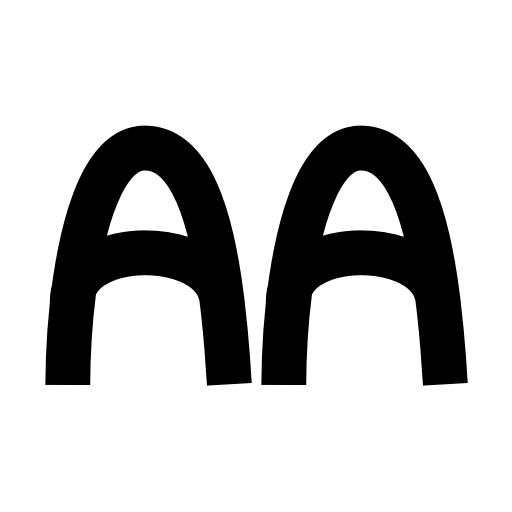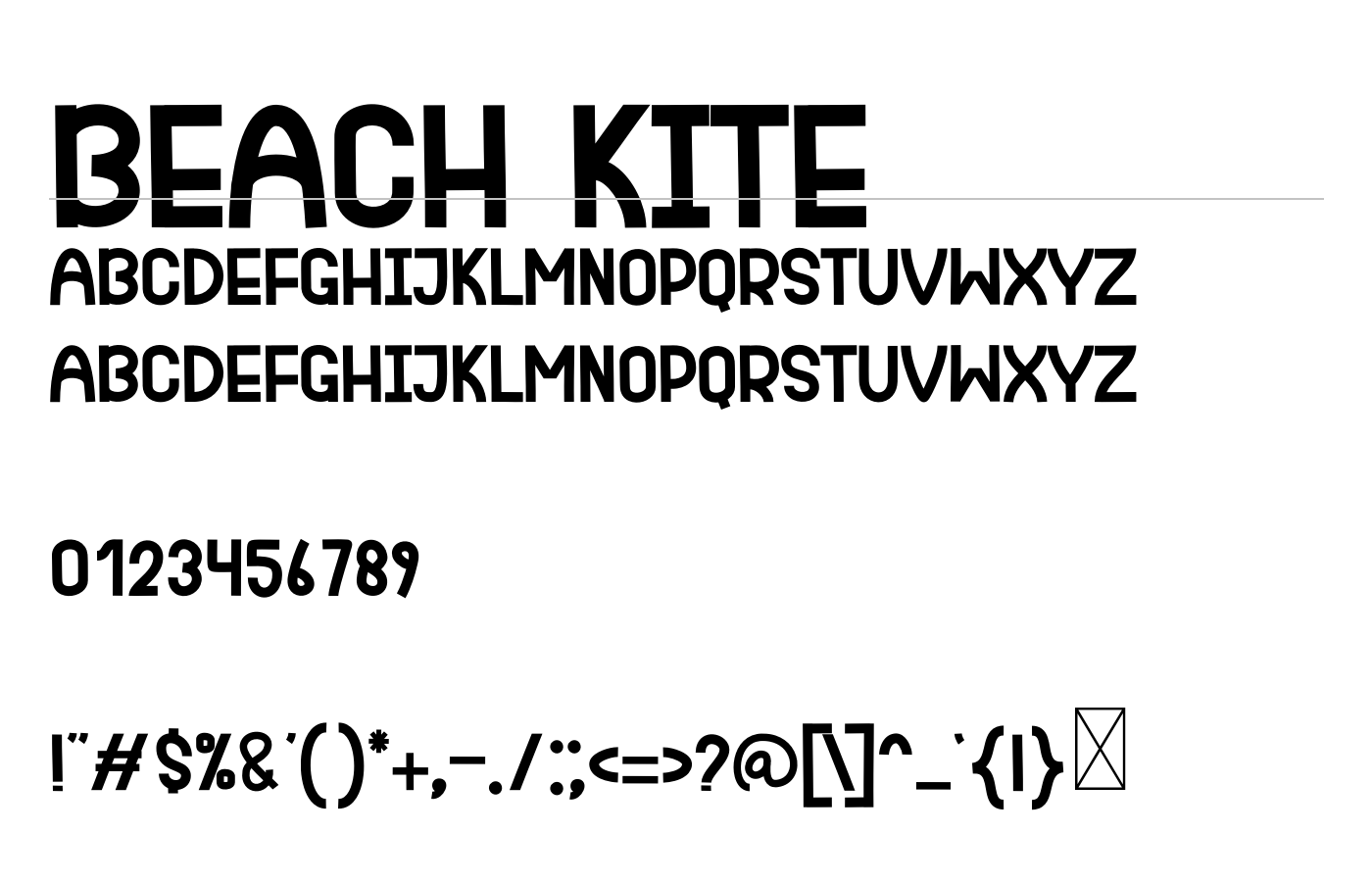
Beach Kite is a playful and casual sans serif font with a hand-drawn feel, featuring irregular, rounded letter shapes that evoke a friendly and approachable mood. Its quirky letterforms, uneven stroke widths, and moderate x-height make it ideal for fun, informal designs such as children’s books, posters, and lifestyle branding that seeks to convey warmth and creativity. This font works best in display sizes where its unique character can shine and add personality to any project.
Beach Kite Font